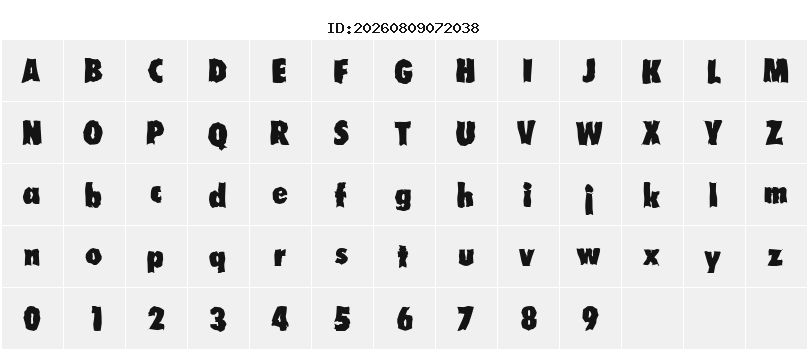
About PeterBeckerCondRandom-Heavy.ttf
PeterBeckerCondRandom-Heavy.ttf is a modern, elegant sans-serif font designed for ultimate readability and visual harmony. Perfect for branding, headlines, web design, and print materials.